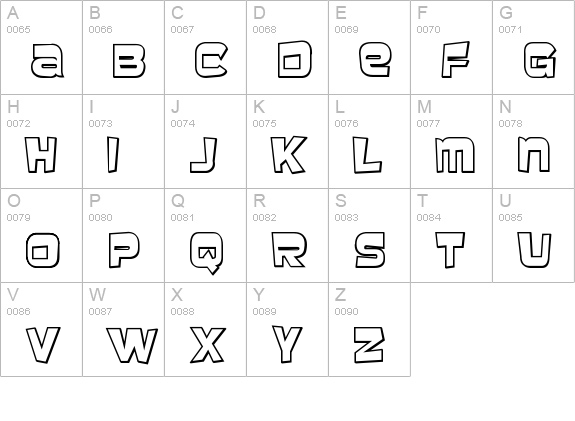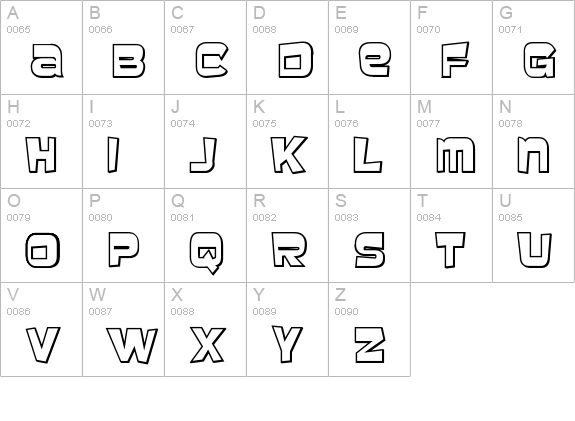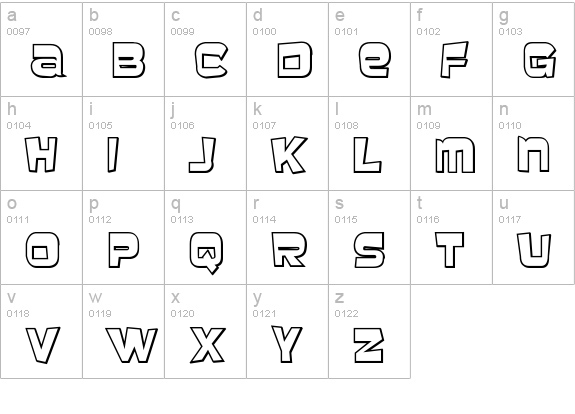
Baveuse 3D Font Details
Baveuse 3D font is a fun and playful typeface that adds a unique touch to any design project. Its three-dimensional effect gives your text a dynamic and eye-catching appearance, making it perfect for headlines, logos, and other display purposes. The rounded edges and slightly distorted look of the letters create a sense of movement and energy, making this font a great choice for projects that need a touch of whimsy. Best of all, Baveuse 3D font is available for free download at FontsMarket.com. Whether you're a designer looking to experiment with a new style or a business owner in need of a fresh look for your branding, this font is a versatile and accessible option. Don't miss out on the opportunity to add a playful twist to your designs with Baveuse 3D font - download it for free today!